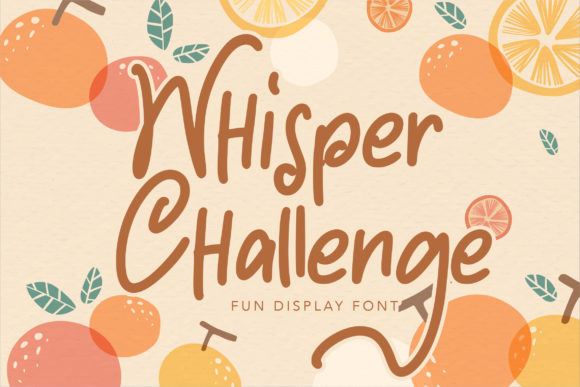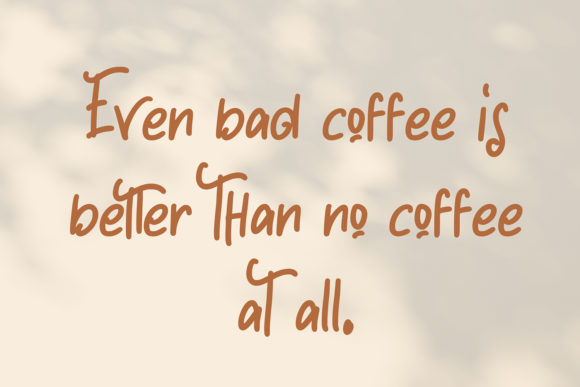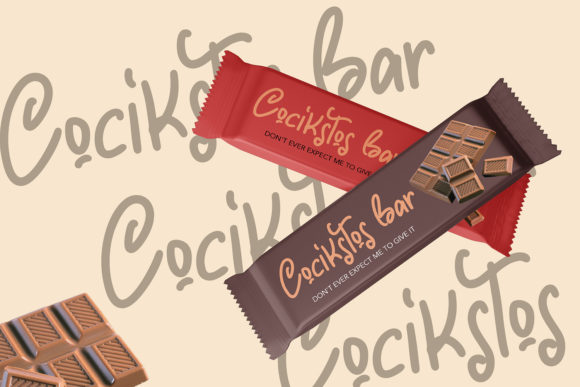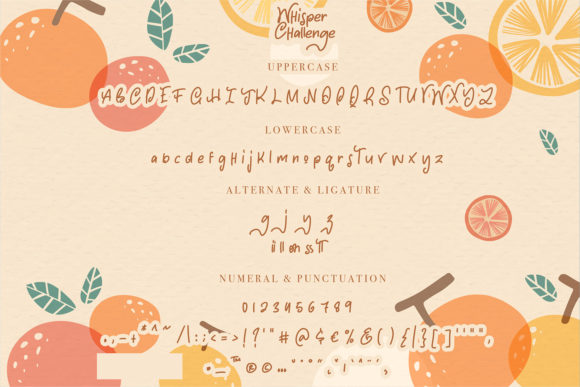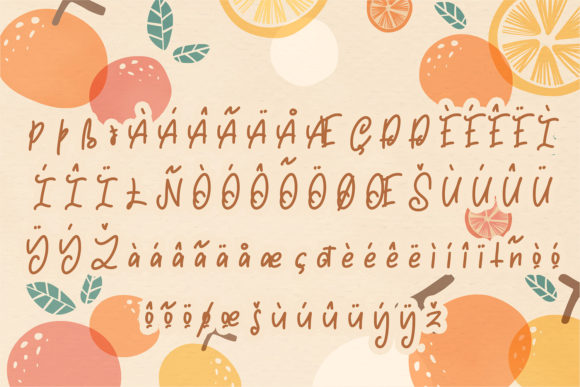
Whisper Challenge Font
About Whisper Challenge Font
Whisper Challenge is a stylish and incredibly distinct script font. It looks stunning on wedding invitations, thank you cards, quotes, greeting cards, logos, business cards and every other design which needs a handwritten touch.